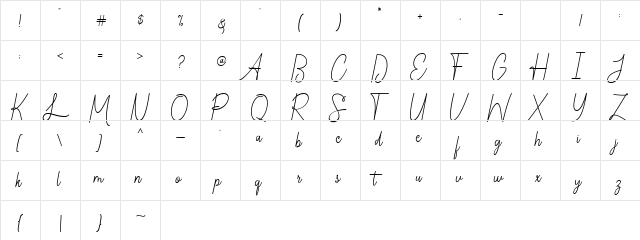
Chandelle Signatures Script Regular
Design Context for Chandelle Signatures Script Typeface
Chandelle Signatures Script brings a calligraphic fluidity to the page — its connecting strokes and expressive curves give it an unmistakably human quality.
Font Pairing: Combine Chandelle Signatures Script with a simple geometric sans for maximum contrast — the tension between flowing curves and clean structure is a classic typographic pairing.
Pro Tip: Use Chandelle Signatures Script for short runs of text — names, titles, or taglines. Extended body copy in script faces tires the eye quickly.